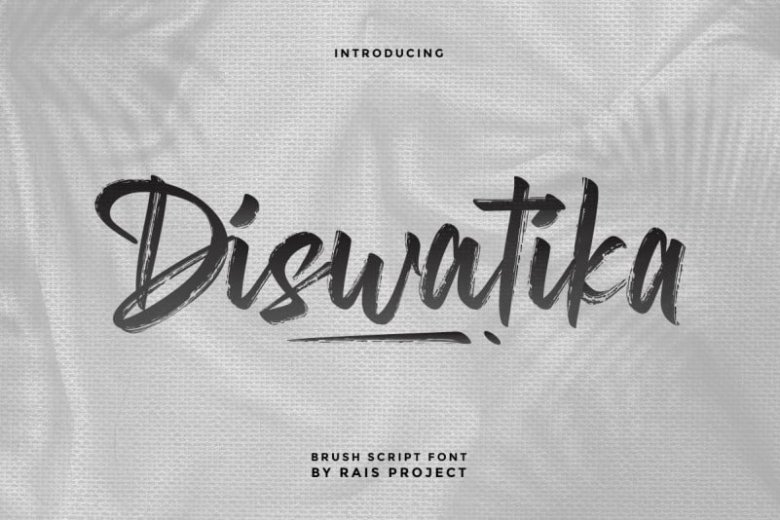
Diswatika Font
Diswatika Brush Font
Diswatika Brush Font is remotely made in Bandung and Garut, Indonesia. The font was handcrafted for any your special projects including : headlines, promotion, events, branding, advertising, magazine, signage, invitation, stationery, social media posts, label, or and any projects that need unique strong style. The theme/industries of this font is Vintage, Horror, Movie, Game, Magazine, Music, Video, Sports, Racing etc.